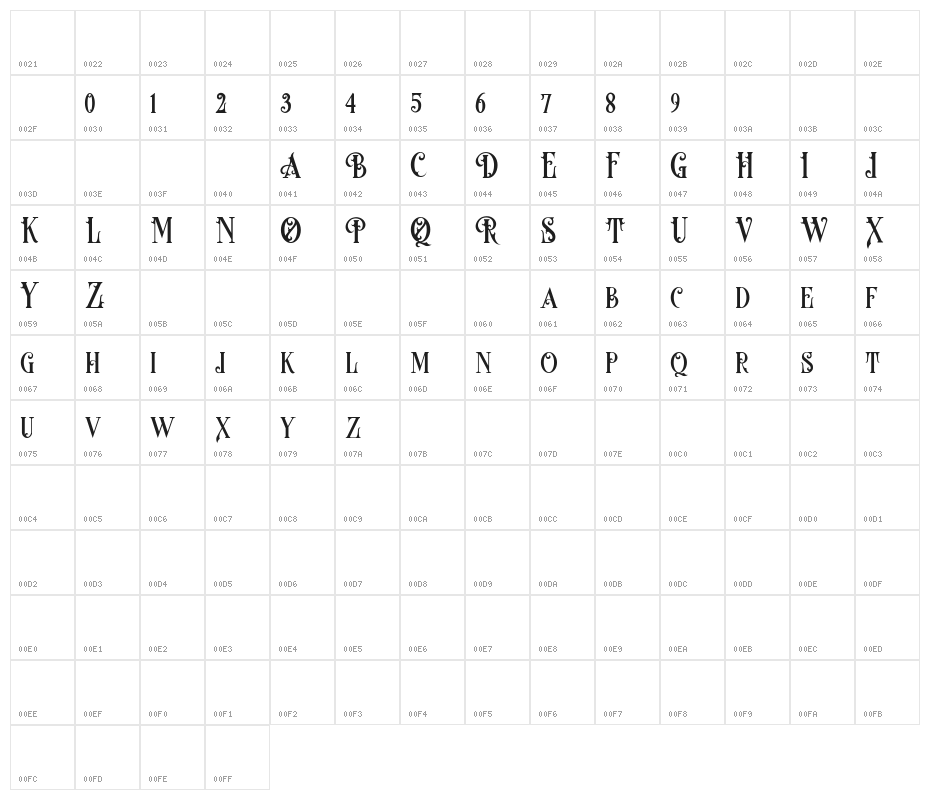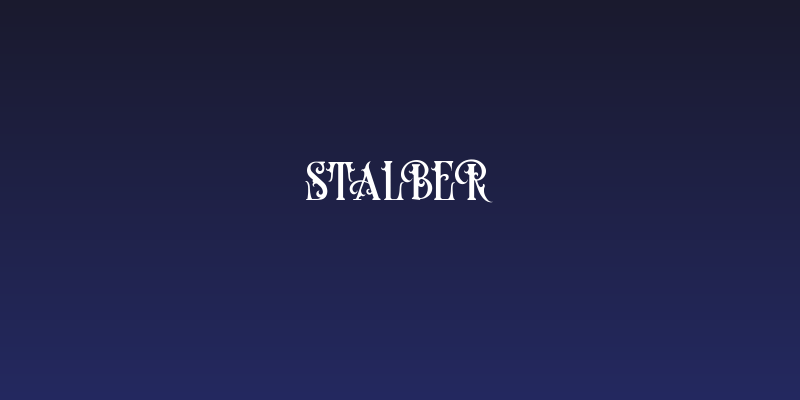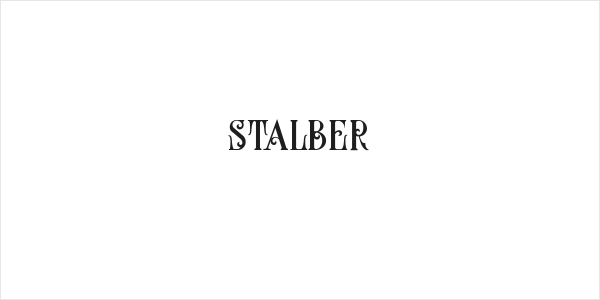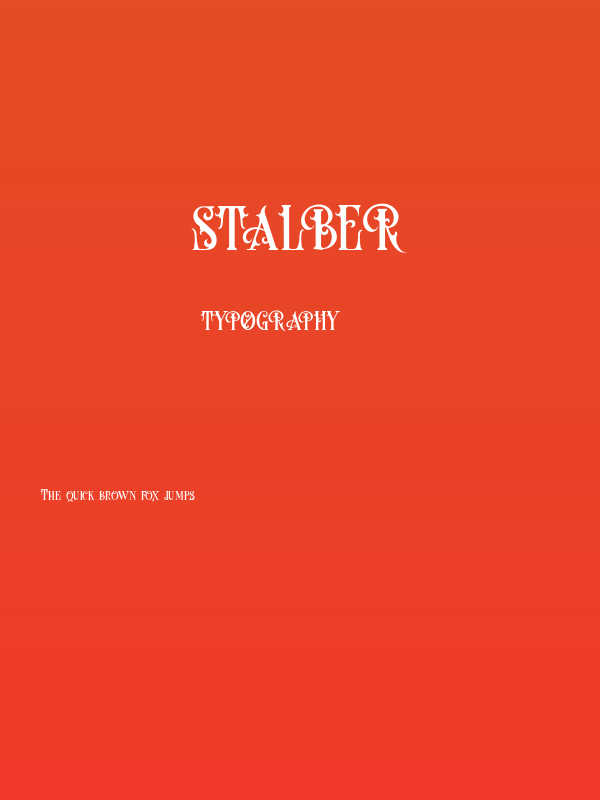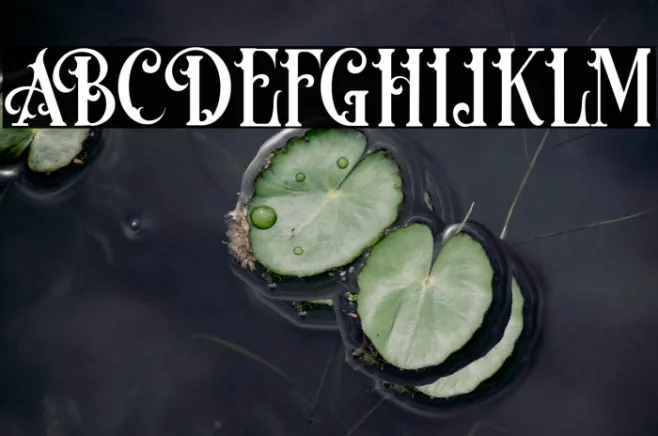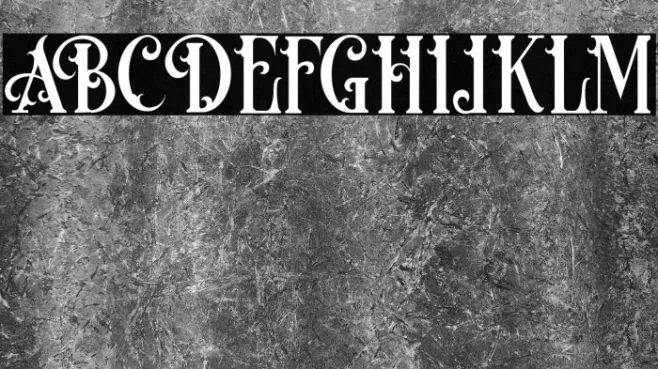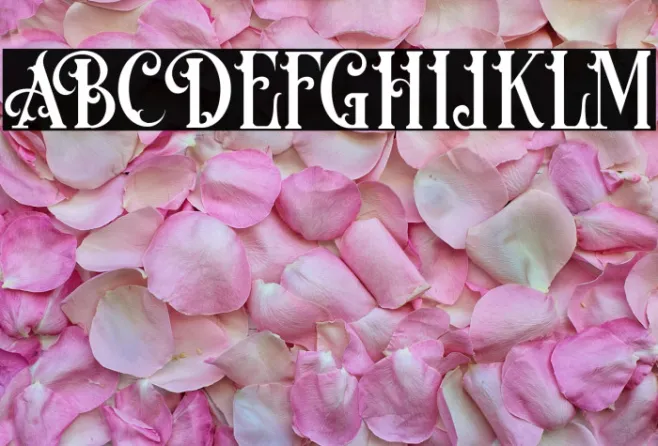
stalber Font
stalber Description
This font features a decorative and ornate style, characterized by its intricate serifs and flourishes. The uppercase letters exhibit a bold presence with elaborate curves and pointed edges, giving a sense of elegance and sophistication. The lowercase letters maintain a consistent style, complementing the uppercase with similar decorative elements. The numerals are distinct and follow the same ornate design, ensuring uniformity across all characters. This font's unique style makes it suitable for projects that require a touch of classic elegance and artistic flair.
| Proposed Projects | Ideal for wedding invitations, luxury branding, vintage posters, and decorative signage. |